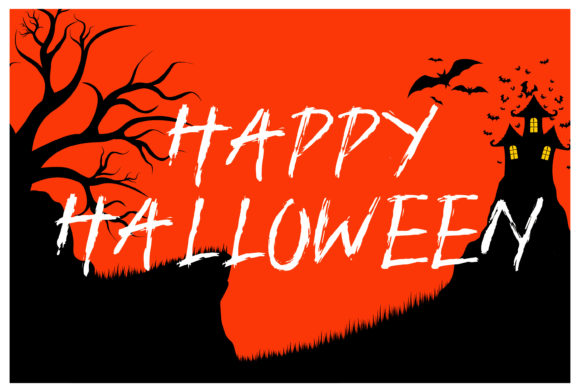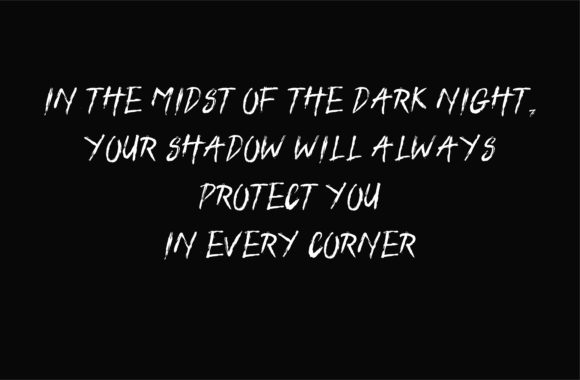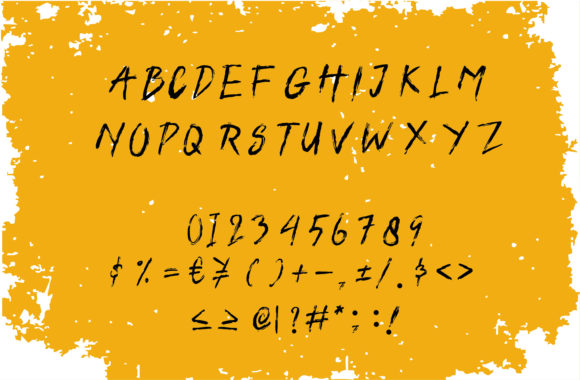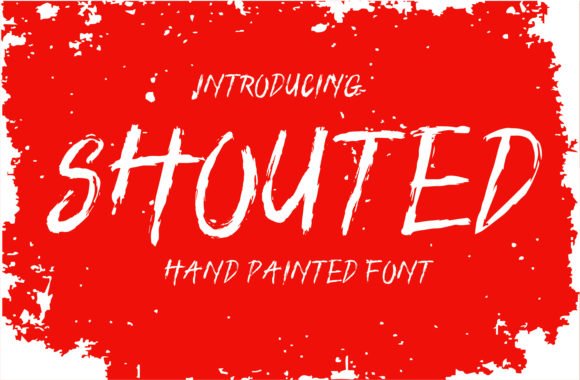
Introduction to Shouted Font
Shouted is a cool, rough textured and urban styled display font.
It is suitable for designs such as t-shirts, sportswear, logos, advertisements, clothing, and more .
Shouted Font offers exceptional quality and versatility, making it a valuable addition to your design toolkit. Whether you’re creating for personal projects or commercial use, Shouted Font delivers professional results.